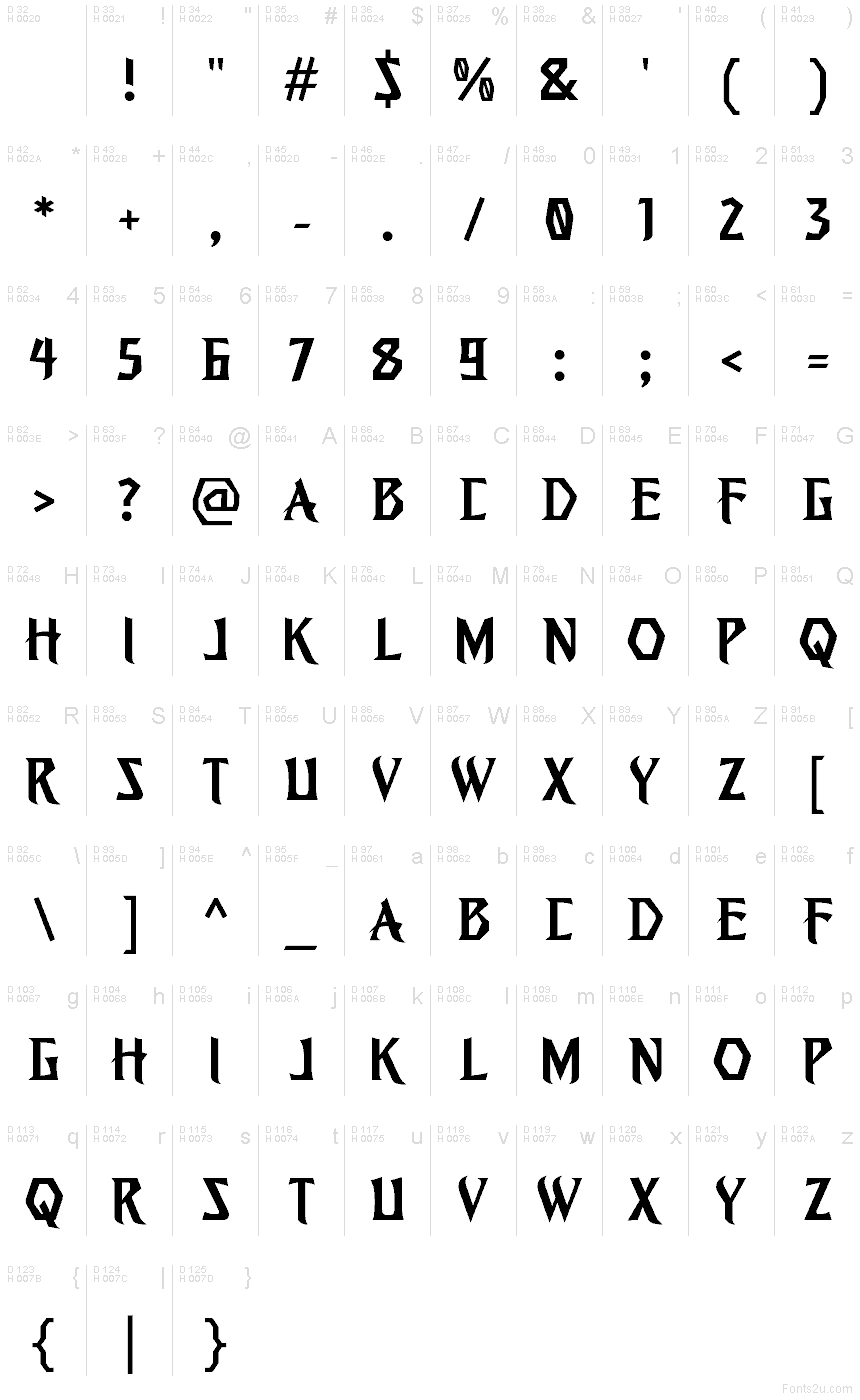
Fespyro Demo
Fespyro font by Faqih Fawaji is a free modern gothic display font. Its defining move is the chiseled geometry: blade‑sharp angles, beveled corners, and controlled curves that feel forged rather than drawn. The letters lock together with crisp rhythm, giving you that dark, cinematic weight without the fussy clutter typical of old blackletter. It reads clean at size, but the facets catch light—visually, at least—like cut obsidian.
Using Fespyro, you get instant attitude for game logos, metal or hard‑rock posters, dark‑fantasy book covers, esports branding, album art, and festival banners. This free font shines when set large with a touch of extra tracking; pair it with a neutral grotesque sans for supporting text to keep the spotlight on those sculpted forms.